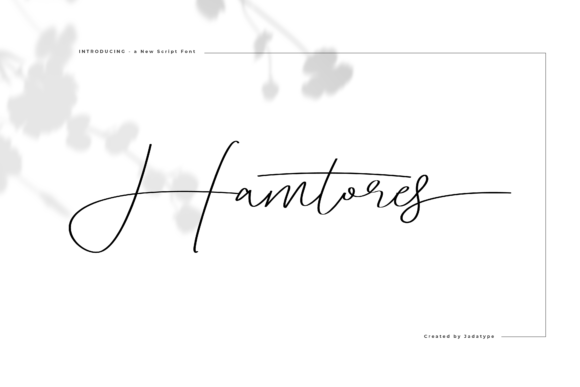
The Perfect Brush Stroke: Unlocking the Magic of Hamtores Font
Have you ever sat down with a blank page and a pen, only to find yourself lost in the flow of creativity as the words begin to pour out? It’s that magical moment when your design ideas start to take shape, and the world feels full of possibilities. For designers, this feeling is what drives us to push the boundaries of our craft, and it’s exactly what the Hamtores Font is designed to evoke.
This lovely and timeless handwritten font is more than just a tool – it’s a key to unlocking the beauty and personality of your designs. Whether you’re creating eye-catching logos, branding, or quotes, Hamtores Font adds a unique and beautiful touch that brings your work to life. With its versatility and charm, it’s no wonder that designers swear by Hamtores Font as their go-to choice for making their designs truly unforgettable.
Key Features of Hamtores Font
- Unique Characteristics: Features a unique blend of modern and traditional elements, making it an excellent choice for designers seeking a distinctive look.
Hamtores Font Review
Overall, I think the Hamtores Font is a unique and interesting addition to any design project. Here are some things that work well:
- ✨ The font has a distinctive, hand-drawn feel that adds a touch of personality to any text.
- ✨ The font is highly customizable, with a wide range of weights and styles to choose from.
- ✨ The font is highly legible, even at small sizes, making it a great choice for body text or headlines.
- ⚠️ The font may not be suitable for all design projects, particularly those that require a more formal or traditional look.
- ⚠️ The font can be a bit overwhelming in large quantities, so use it sparingly to avoid visual fatigue.
Overall, I think the Hamtores Font is a great choice for designers who want to add a touch of whimsy and personality to their projects. Just be sure to use it thoughtfully and consider its limitations.
Tips for Getting the Most Out of Hamtores Font
To get the most out of Hamtores Font, consider the following tips:
- Experiment with different font styles and sizes to achieve the desired effect.
- Pair Hamtores Font with other fonts to create a unique and visually appealing design.
- Use Hamtores Font in combination with bold or italic styles to add emphasis.
Common Use Cases for Hamtores Font
Hamtores Font is commonly used in:
- Graphic design and branding projects.
- Print materials such as business cards and brochures. Alternatives to Hamtores Font for Designers
- Use the font for the title of the poster, making sure it stands out with a bold and bright color.
- Combine the font with a distressed background texture to give it a retro feel.
- Use other design elements like neon lights, vinyl records, and cassette tapes to complete the retro theme.
- Use the font for the main headings and subheadings, making sure they are clear and easy to read.
- Combine the font with icons, charts, and graphics to break up the text and make the infographic more engaging.